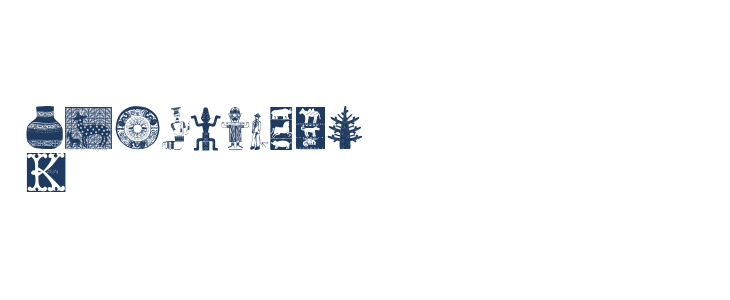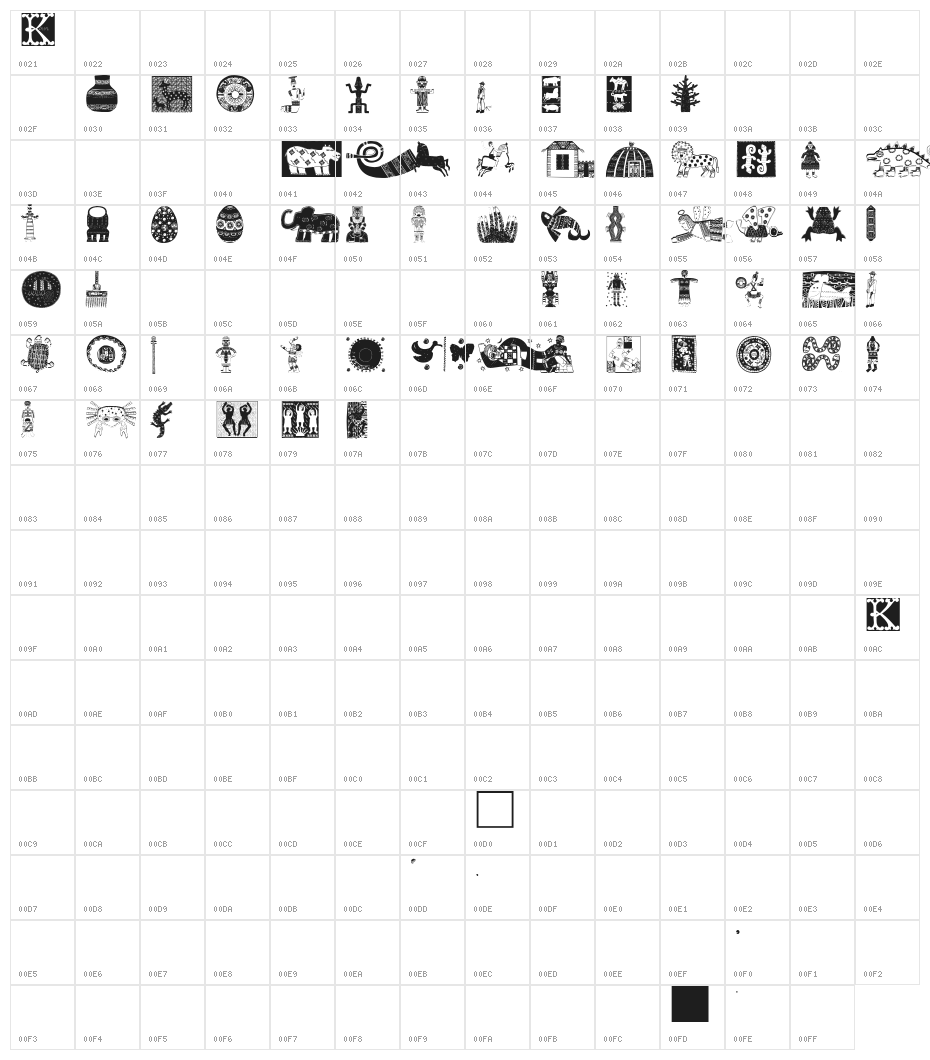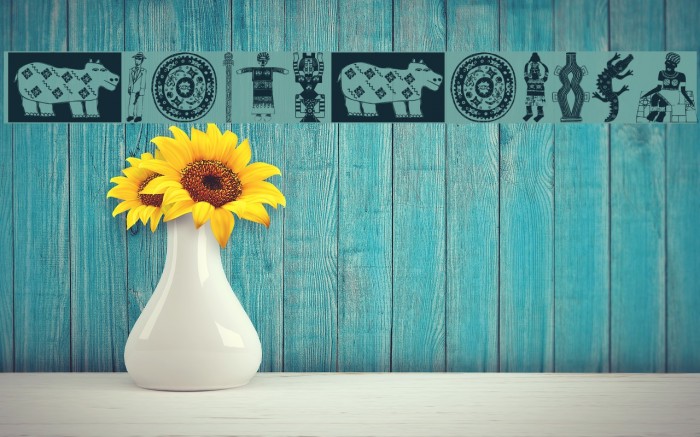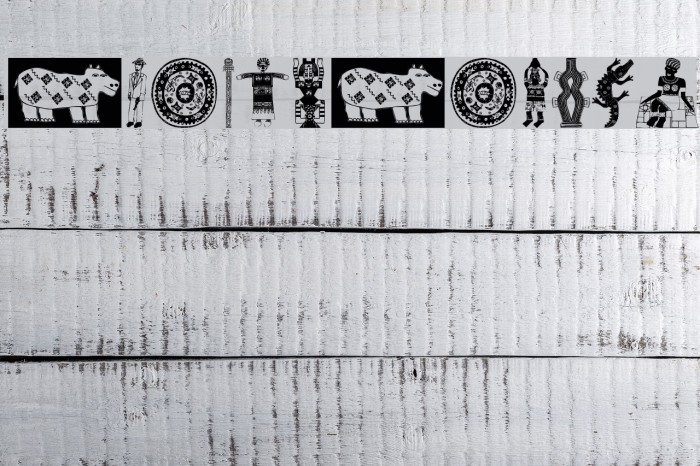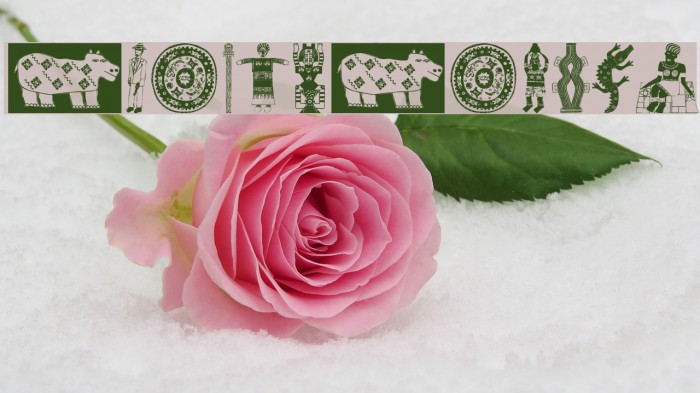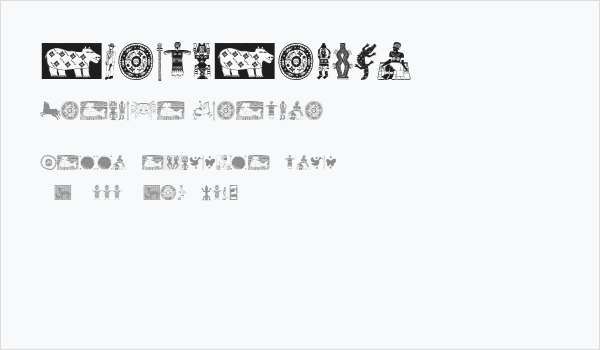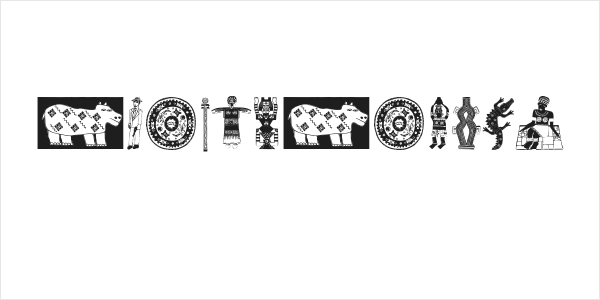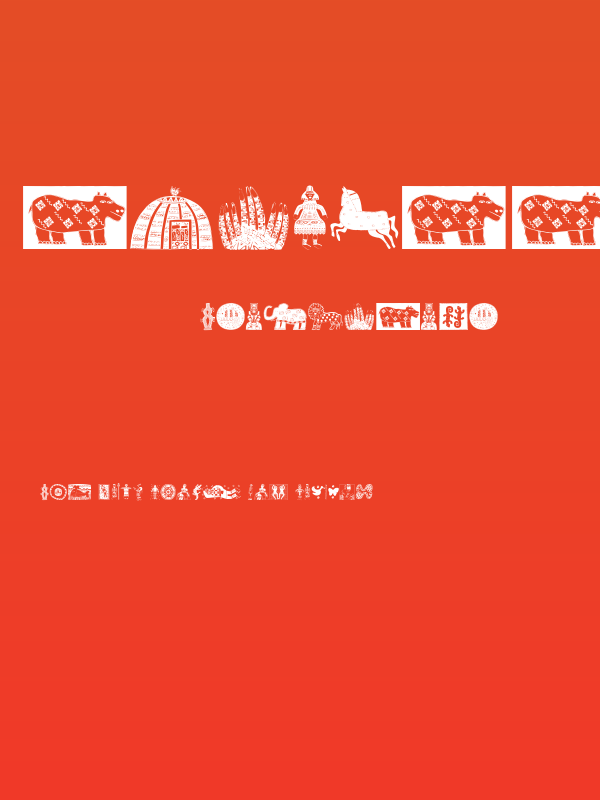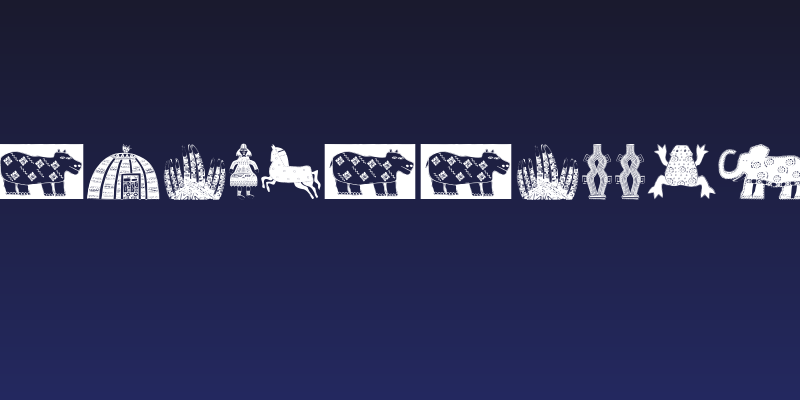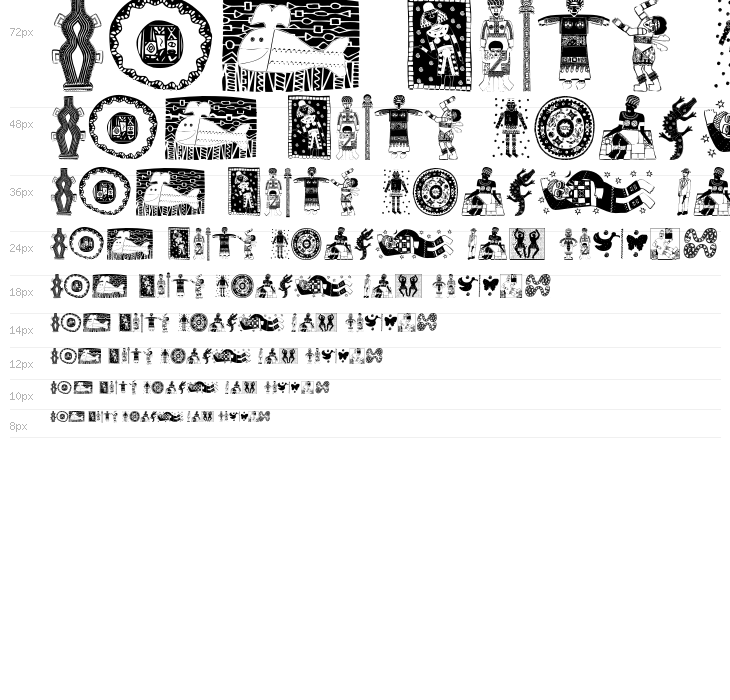
AfricaArtTwo Font
AfricaArtTwo Description
A highly decorative and illustrative dingbat font featuring African-inspired art, symbols, animals, pottery, masks, and traditional motifs, rendered in bold black-and-white silhouettes with intricate patterns and cultural references.
| Overall Style | Decorative, Ethnic, Artistic |
| Use Case | Illustrative elements, icons, thematic dividers, visual storytelling. |
| Proposed Projects | Posters, educational materials, cultural event branding, art projects, scrapbooking, themed invitations. |